Lucas Sharp, Type Director and co-founder of Sharp Type, takes you on a tour of his latest type designs while sharing the creative journey and challenges of rebuilding a font library from the ground up.
Biography
Lucas has been designing award-winning original typefaces for over a decade. In addition to designing his own typefaces, Sharp serves as the type director of the foundry, offering guidance, art direction, and mentorship to the type design team. Sharp has designed typefaces for major brands and organizations, including Samsung, Dropbox, and Pentagram. Sharp’s typefaces have been honored by the TDC, the European Design Awards, and more. He co-founded Sharp Type in 2015.
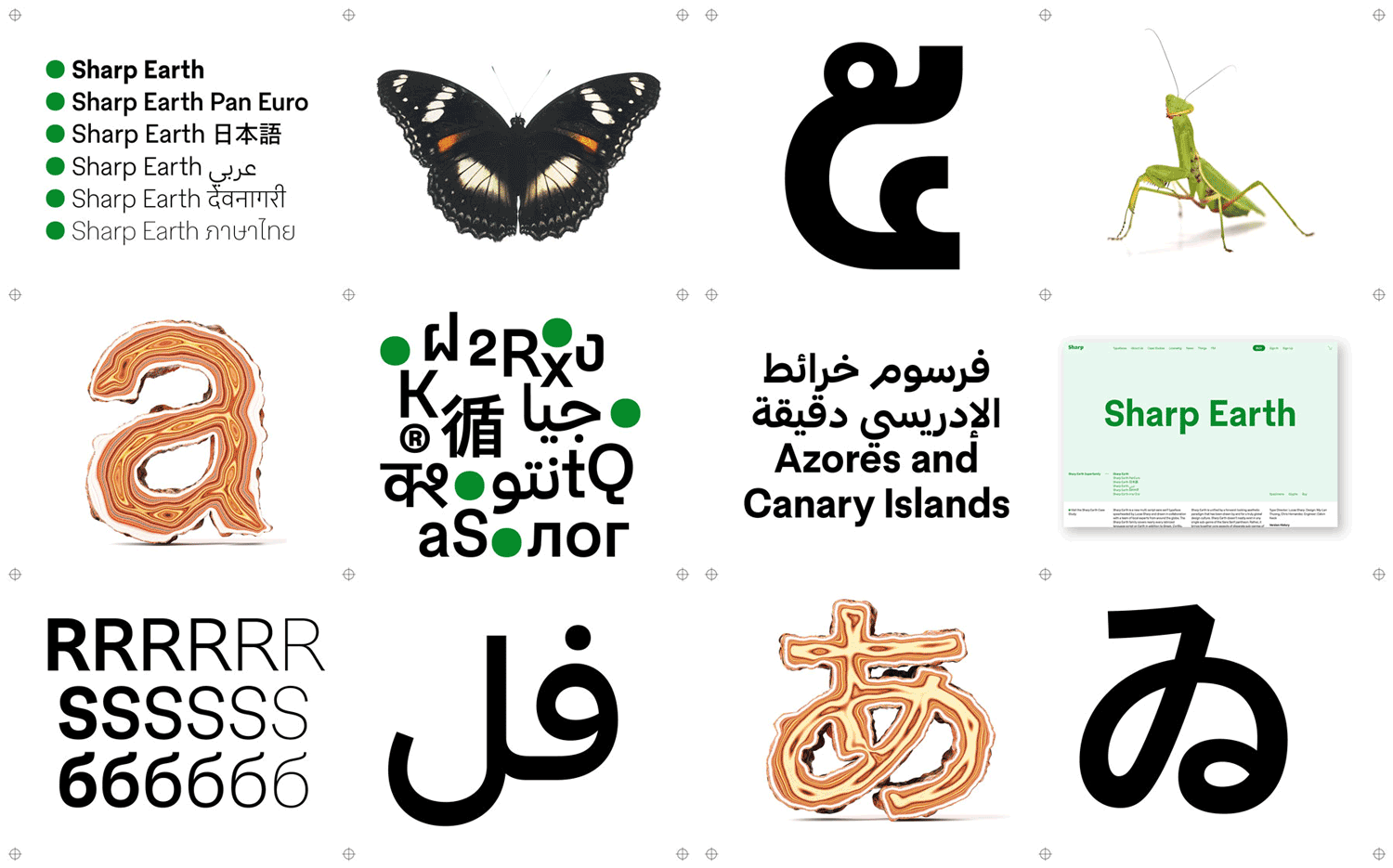
NOW25 Lecture
Q&A with Lucas Sharp, SharpType
LP: Lia Porquet
LS: Lucas Sharp
LP: What is your favorite way to start a day?
LS: I’m a big believer in circadian health, and these days I just like to feel great all the time, so typically I try and get to bed lights out before 10pm. So I usually wake up naturally around 6:30am. The first thing I do in the morning after getting up is pray to God. Next I eat 6 raw eggs with coffee and butter. Then I go outside to watch the sunrise. This is very important for your health and vitality. After some quiet time out on my deck, greeting the morning sun, I go inside and eat breakfast with my family. After my second breakfast, I usually do a five minute cold plunge, which usually happens right as the run is cresting over the adjacent hillside so I sun-gaze in the cold plunge.
LP: What do you do to evade yourself from work?
LS: I like to train in the gym and run in the mountains behind my house. I’m also getting into shooting and tennis. When I need to get away from my computer, sometimes I take a quick cold plunge or go in the sauna. I love to spend time at the beach without my phone and just being present with my family and friends. I also like to take my daughter to the park. Sometimes when I feel like I need to just turn off my brain I will let myself play a computer game.
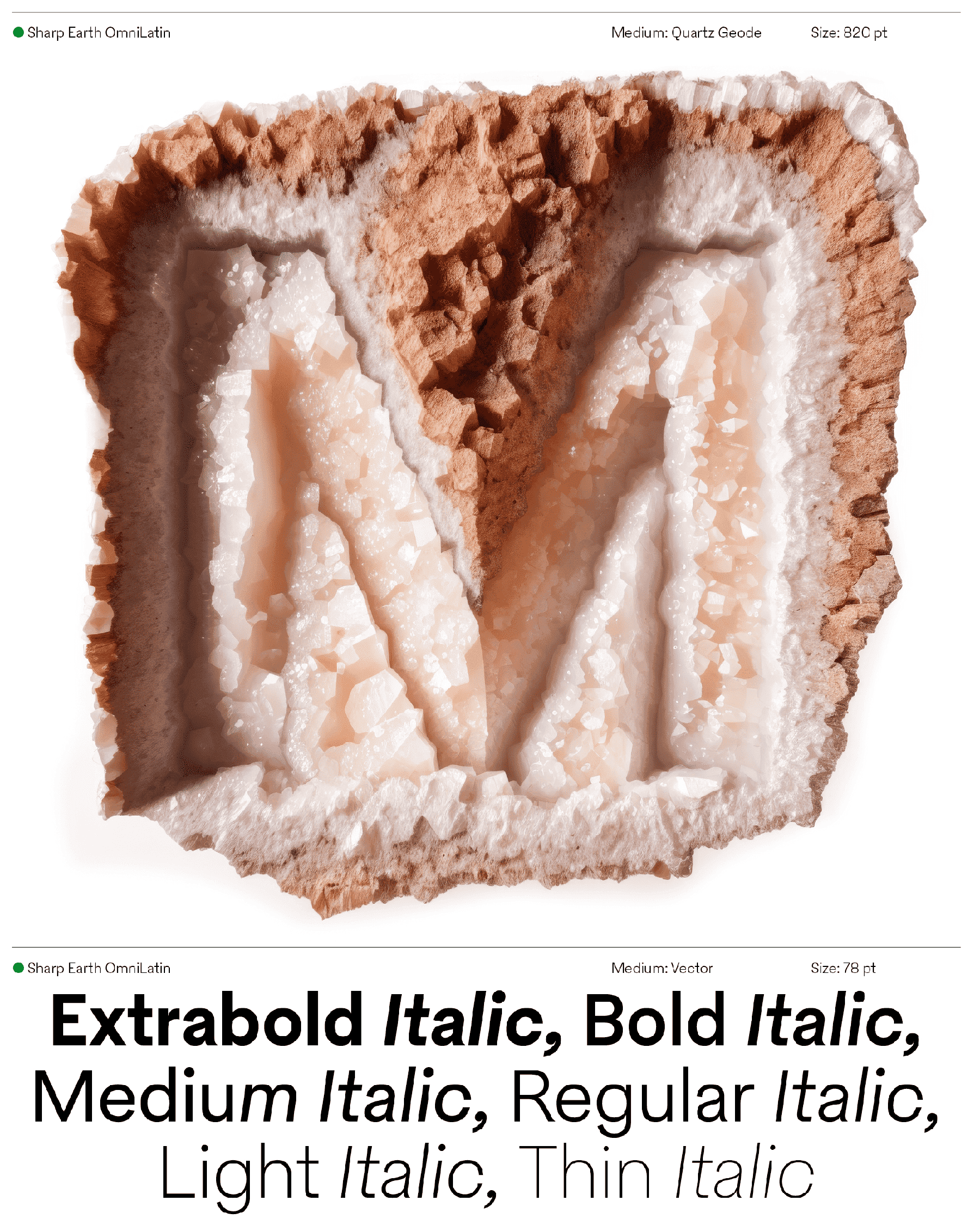
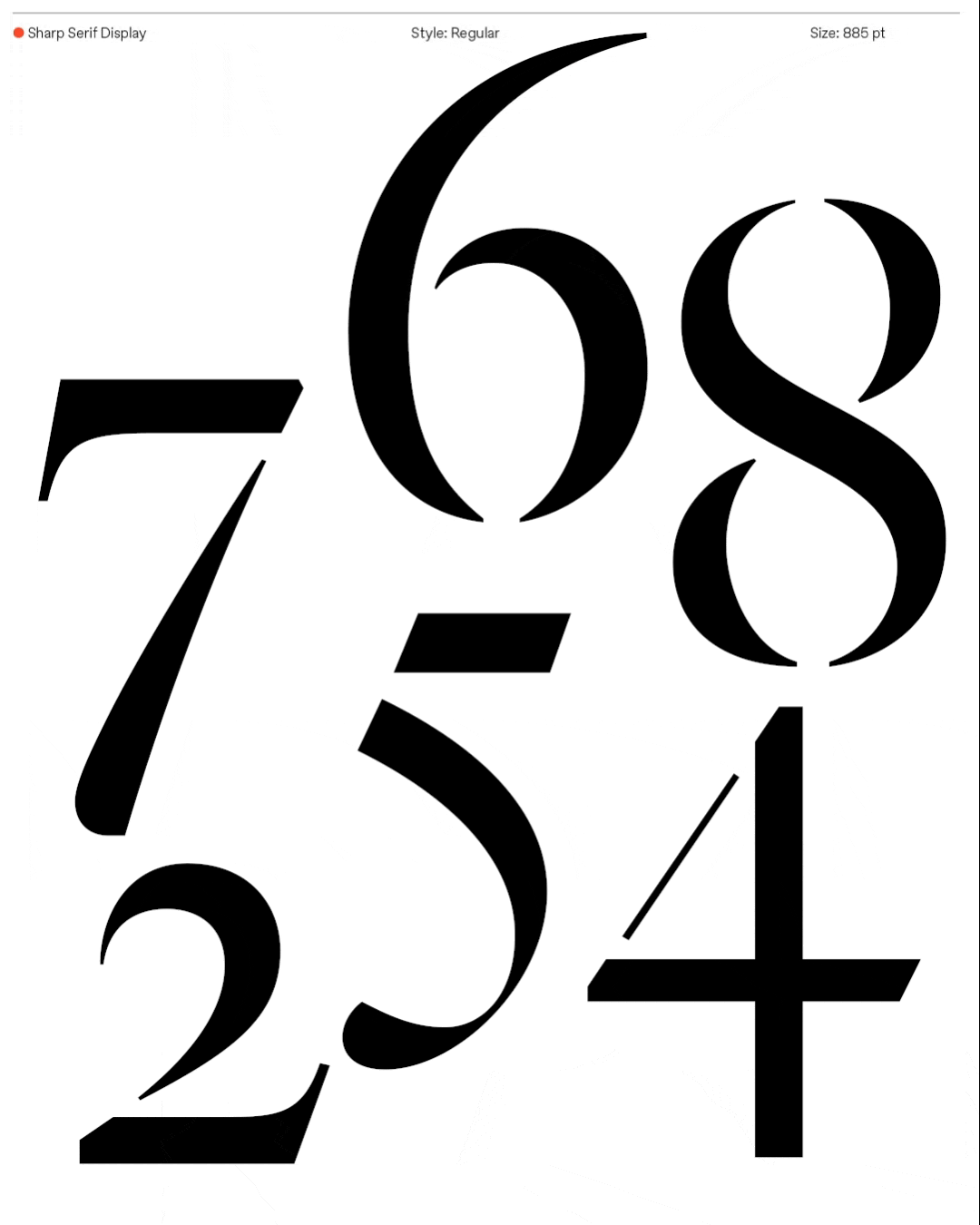
“I approach type design primarily from the perspective of the artist, but the other approaches are equally valid.”
LS: What drives you to create new typefaces?
LS: My typeface design practice is a continual exploration of form and my inspiration comes from many places. Sometimes, I just have an idea, but often It comes from seeing some kind of reference somewhere in the world that moves me to draw it. In these instances, it's almost of covetousness that drives me, like I need to experience that form in some way, like beholding anything beautiful, something drives me to want to possess it. My best work, however, comes from something deeper. The path I am on now involves meditation and I think there is a faculty of visualization one can tap into, where they are almost channeling rather than creating (I wonder if all “creating” is just this). Maybe what people call creativity is just sensitivity and discernment.
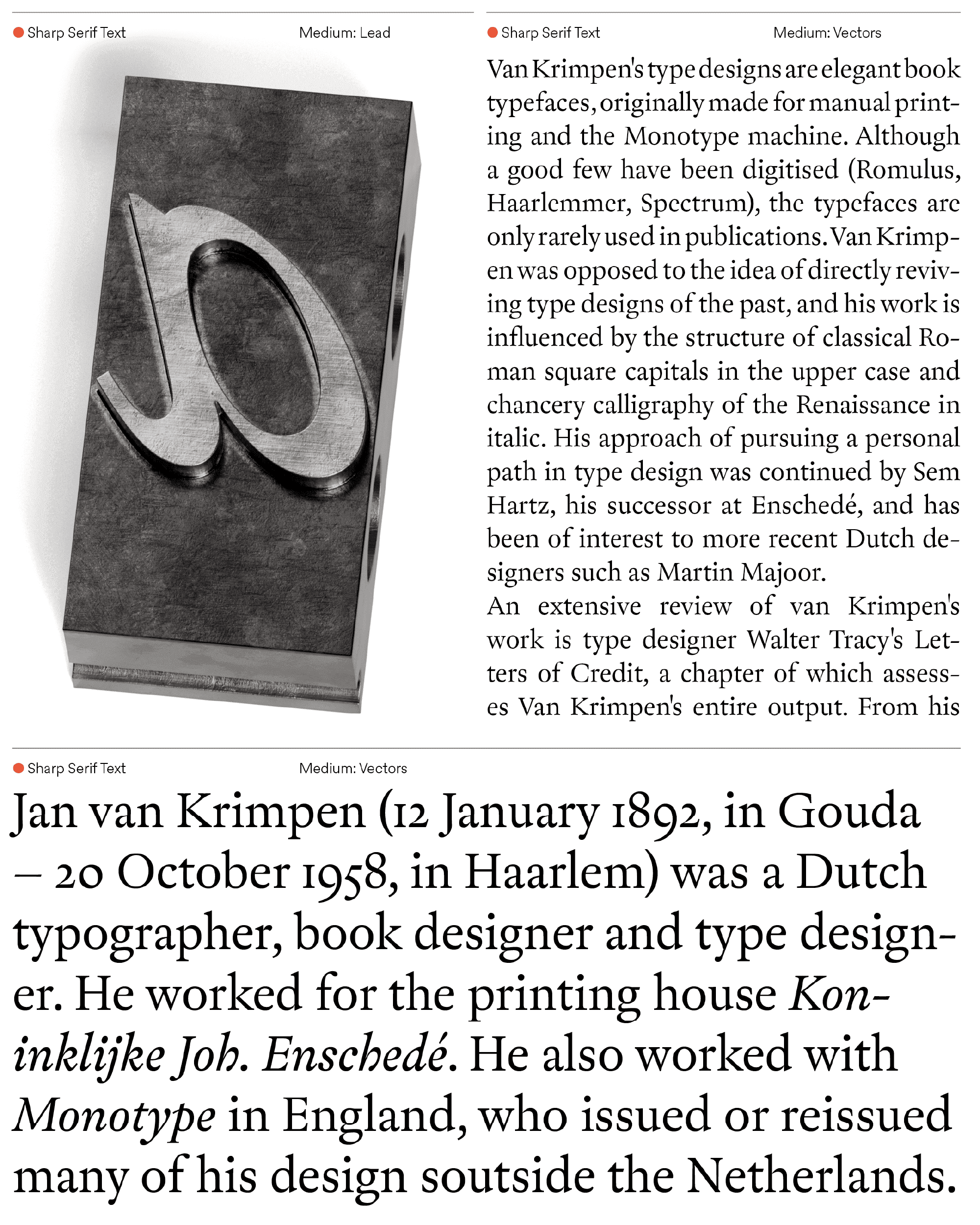
LP: Are you rather one of those who draw or redraw type classics, or those who seek to totally invent new forms?
LS: In practice, going through old type specimens and illuminated manuscripts hunting for unique and beautiful letterforms is one of my favorite things to do. It’s just a wonderfully sensuous experience and it's also exciting like a treasure hunt. I’m a truffle pig for beauty and I’m willing to go wherever I need to go to find it.
I used to pride myself on my originality, and I still feel like this is a virtue we should strive for, but I’ve come to regard this topic with a bit less zealousness lately. Of course just copying artwork is a lowly and dishonorable practice insofar as one tells the lie of originality, but it is also true that art happens in movements. I believe that ideas exist outside of us, and that we are just channels for them. The older I get the more I internalize the reality that all good things come from God, not me — my ability to manifest goodness is a measure of my ability to be an effective vessel for spirit.
Type designers don’t neatly fit into the distinct categories of artists, craftsmen, or technicians, and indeed we need to be a bit of all these things, but some people in the field gravitate more to one of these approaches. I approach type design primarily from the perspective of the artist, but the other approaches are equally valid. On the subject of originality in type: we are all working within a cultural context with established genres/styles/historical conventions, so what we do in response to this catalyst is really the magic of the artform. It’s important to view the idea of “originality” within this context, but as artists our job is to move the culture forward.
LP: The typefaces published at SharpType reflect a strong interest in the history of typography and in particular the calligraphic canons that you irreverently revisit sometimes. Is it a very personal will, or the reflection of today’s society that would demand a cultural enrichment that brings a sort of “truth”?
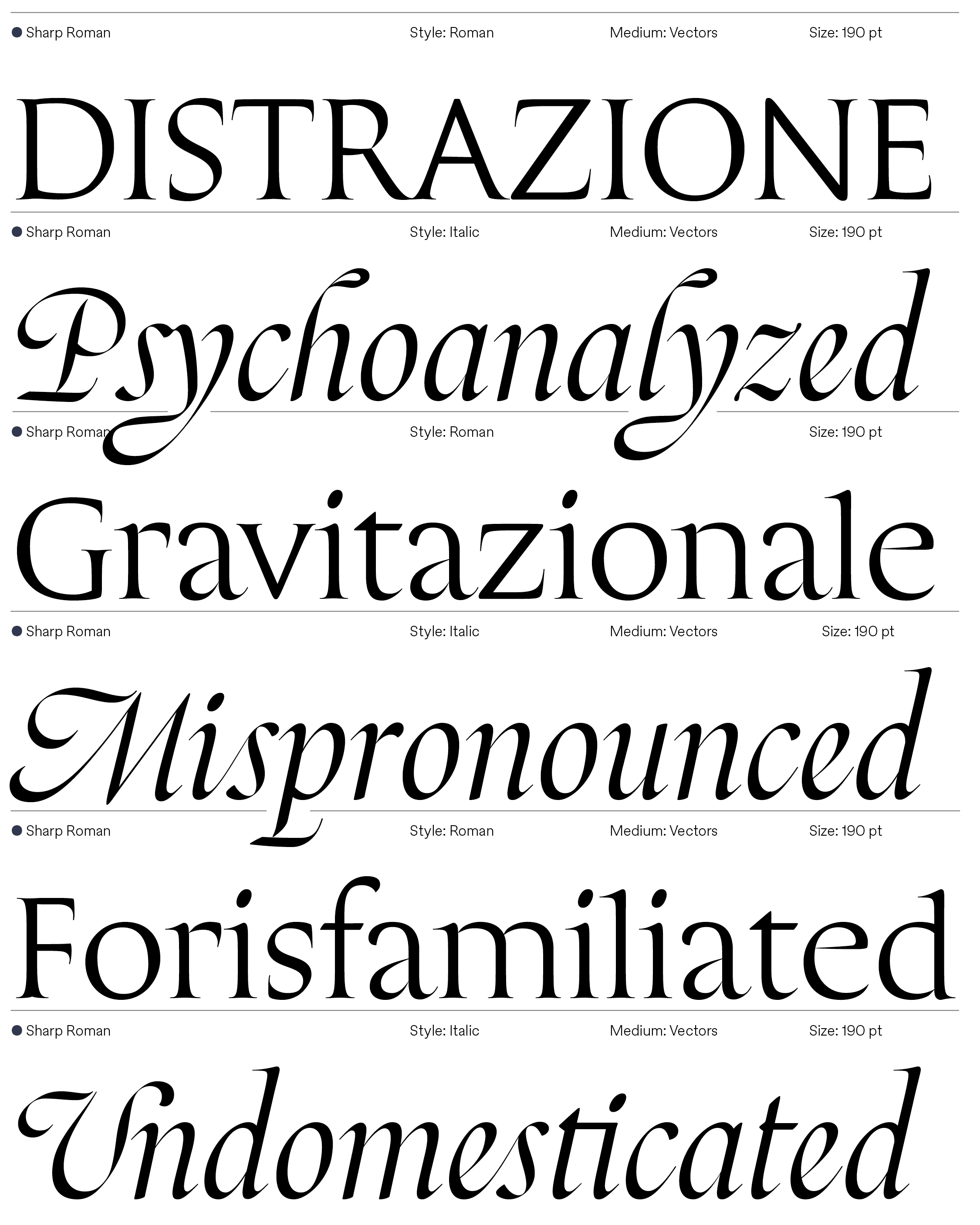
LS: I love the way you framed this question! Truth and beauty are the same. I am just a humble beauty enjoyer.
LP: Do you sketch?
LS: I used to sketch things on paper but now I just sketch in my brain and go right to digitizing in vectors. Visualization is easier or harder for different people, but everyone can do it with practice.
What can you tell us about the state of the font market today?
LS: The rate of cultural production continues to be very rapid in all areas which will only increase. This creates a lot of turnover and the need to increase output to stay competitive, but there has also never been more of widespread awareness around the importance of typography in the design and branding space, so opportunities still abound even though competition is intense. If your letterforms are more beautiful than your competitors, you will win.
LP: What will be the message you would like to convey during your Now25 talk?
LS: If I had one goal for my talk, it would be to help people maintain a connection with the things that got them excited about type and creative pursuits in the first place. We have a lot working against us as creatives these days, and I have enough experience falling face-first into these many pitfalls that I can offer some helpful advice.